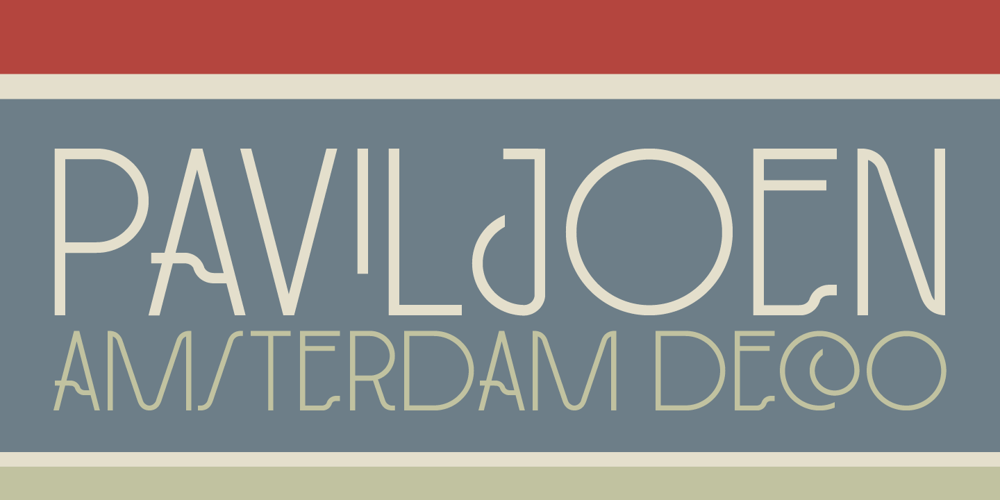
Paviljoen Font Family was designed by David Kerkhoff and published by Hanoded. Paviljoen contains 1 styles and family package options. Paviljoen (meaning Pavilion or Gazebo in Dutch) is an Art Deco typeface which was modeled on cast-iron lettering on some monumental buildings in Amsterdam. I only had a few glyphs to work with, so I designed the remaining ones myself. Paviljoen comes with extensive language support.